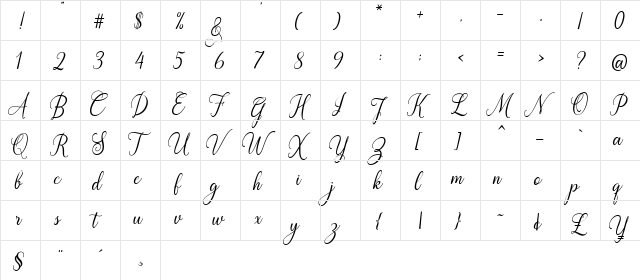
White Crystal Script Regular
Design Context for White Crystal Script Typeface
White Crystal Script flows with the natural rhythm of handwritten lettering, making it ideal for designs that call for warmth and personal expression.
Font Pairing: Combine White Crystal Script with a simple geometric sans for maximum contrast — the tension between flowing curves and clean structure is a classic typographic pairing.
Pro Tip: Use White Crystal Script for short runs of text — names, titles, or taglines. Extended body copy in script faces tires the eye quickly.